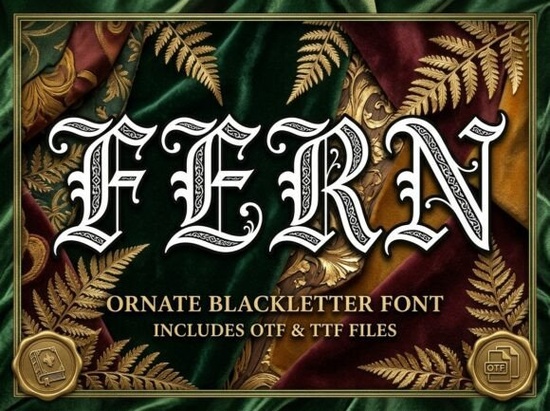
If you're looking for a bold, dramatic font that brings medieval grandeur to your projects, Fern Font stands out as a strong choice. It’s not just another blackletter typeface it’s designed with care, blending historical inspiration with modern usability. Whether you’re creating labels for a craft beer, designing book covers, or building visual content for a dark-fantasy brand, Fern adds instant gravitas.
What makes Fern Font different from other blackletter fonts?
While many blackletter fonts focus on basic structure, Fern goes further. Its letterforms are rooted in Textura-style calligraphy think ancient manuscripts from Gothic cathedrals but with added flair. You’ll notice sweeping flourishes, spiked terminals, and delicate internal details that give each character a sense of movement and craftsmanship. These aren’t just decorative touches; they help create a unique visual rhythm across text blocks.
The weight and density of the font make it feel substantial, almost like carved stone. This is especially effective when used in larger sizes on banners, packaging, or social media graphics. It commands attention without needing extra styling.
Where can you use Fern Font effectively?
- Craft brewery labels: The gothic elegance works perfectly for limited-edition ales or stouts with a mystical theme.
- Tavern or pub signage: Use it for nameplates, menus, or event posters to set a historical tone.
- Luxury book spines: Ideal for fantasy novels, historical fiction, or art books where the cover needs presence.
- Social media headers: A single line in Fern can turn a post into something memorable, especially when paired with moody visuals.
- Print-on-demand designs: Great for t-shirts, mugs, and stickers targeting fans of dark fantasy or historical aesthetics.
It’s also worth noting that Fern handles both uppercase and lowercase letters with consistent style unlike some older-style fonts that only work well in all caps. This flexibility makes it easier to use in varied layouts.
Final thoughts: When should you choose Fern Font?
Choose Fern if you want a font that feels authentic to medieval calligraphy but still fits modern design needs. It’s not for every project its heavy, ornate style suits specific themes like fantasy, history, or high-end branding. But when the mood calls for drama, mystery, or tradition, it delivers.
Try pairing it with simpler fonts for balance like a clean sans-serif for body text to keep your design readable while letting Fern shine as a headline or accent element.